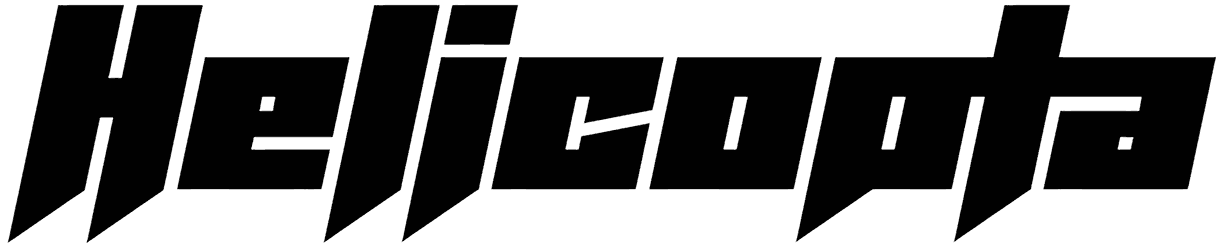
Helicopta Font
Helicopta is an 80s metal font for fans of the noisy atmosphere of this type of music. It has angular and sharp edges that originate from metal decorations and can shout your message in the ears of the audience.
The thick and powerful letters of this font have a classic body, but their spirit can adapt to the modern world. So if you’re thinking of designing an industrial logo or evil posters, Helicopta is ready to reflect your mental ideas.